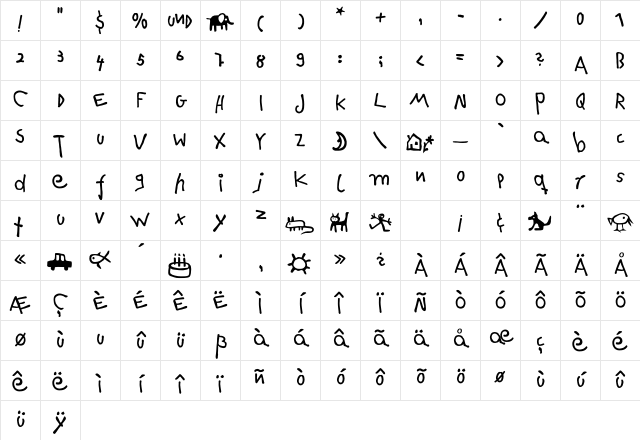
HanselEF Regular
HanselEF Family
Design Context for HanselEF
HanselEF is a composed and adaptable typeface that performs quietly and consistently across a wide range of design contexts.